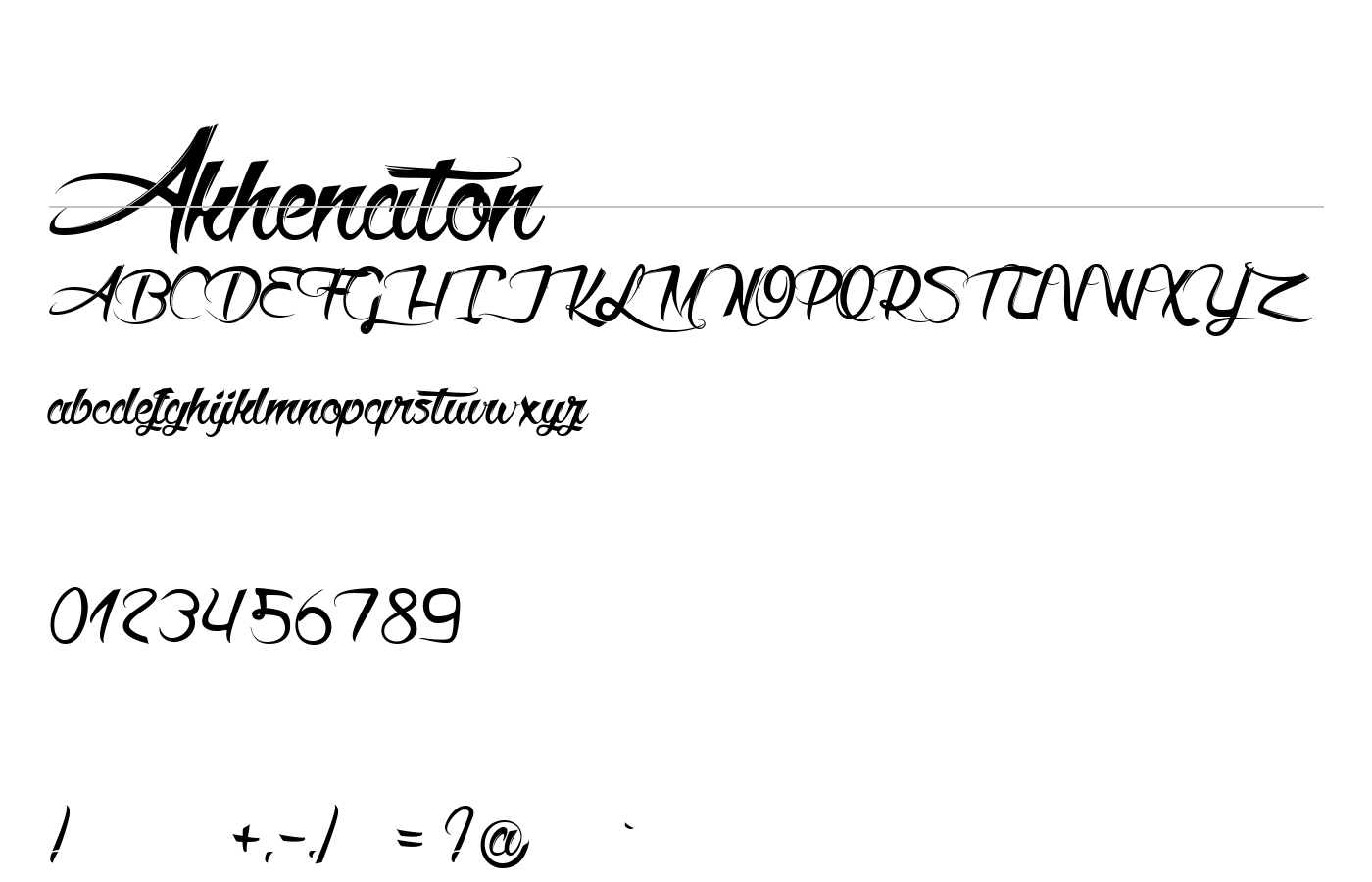
Akhenaton is an elegant script font with a refined, handwritten feel characterized by smooth, flowing strokes and ornate flourishes, creating a stylish and artistic appearance. Its medium contrast and slender letterforms convey sophistication and grace, making it ideal for luxury branding, invitations, and decorative headlines where a personal, upscale touch is desired. This font works beautifully in contexts that need a blend of classic charm and modern flair, enhancing visual appeal without overwhelming the design.
Akhenaton Font
About Akhenaton Font